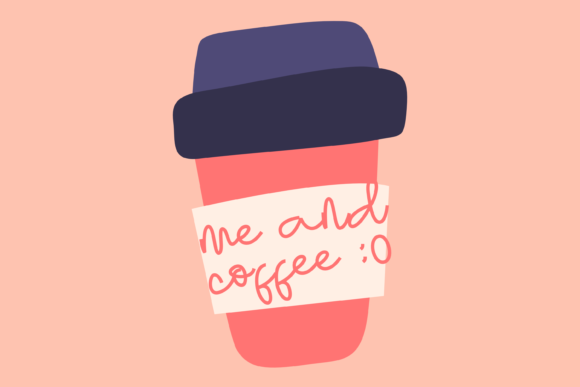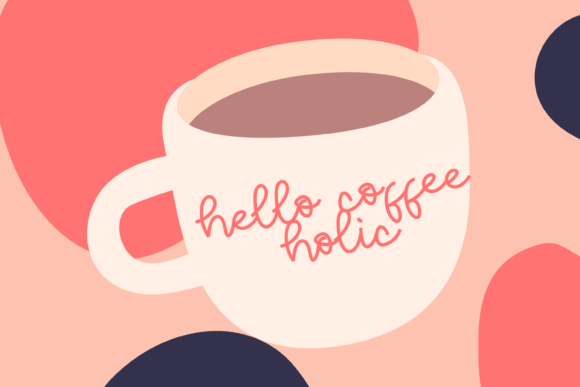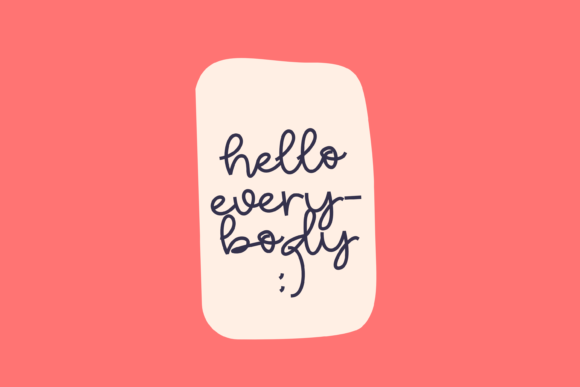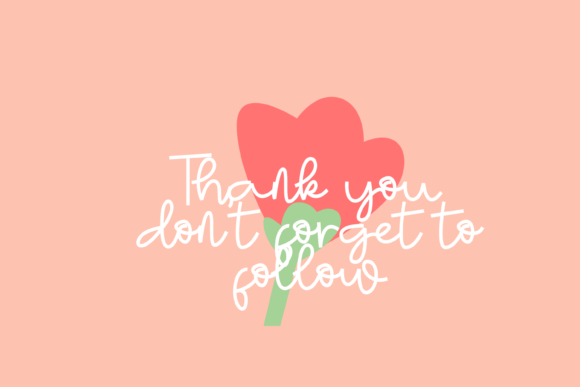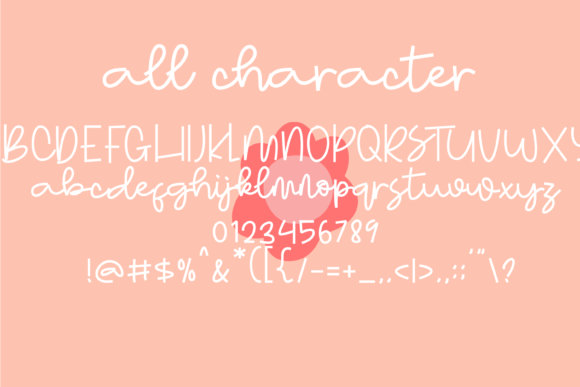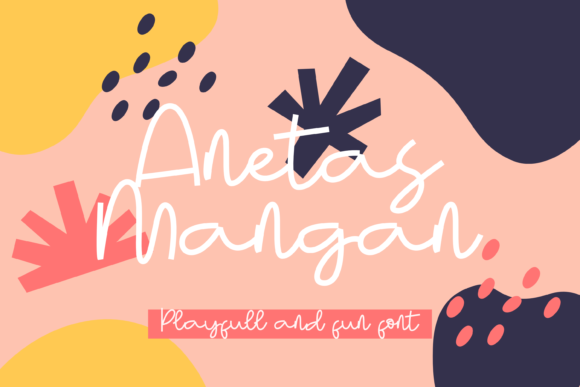
The Quest for the Perfect Font: Discovering Anetas Mangan
I’ll never forget the time I was working on a project for a client who wanted a friendly, approachable vibe for their branding. I had spent hours scouring font libraries, but nothing seemed quite right. That was until I stumbled upon Anetas Mangan, a fun and quirky handwritten font that instantly captured the essence of what my client was looking for.
Anetas Mangan is a cursive and natural-looking font that can make any of your lovely creations seem authentic and friendly. In this article, I’ll share my experience with this wonderful font, its features, and how to make the most of it in your designs.
An Honest Review of Anetas Mangan
- ✨ Unique and Quirky: Anetas Mangan has a distinct personality that sets it apart from more traditional fonts.
- ✅ Cursive and Natural-Looking: The font has a beautiful, flowing script that gives it an authentic feel.
- 💕 Friendly and Approachable: The overall vibe of Anetas Mangan is perfect for designs that need a warm, welcoming touch.
While Anetas Mangan is an excellent font, there are a few things to keep in mind:
- 🤔 Legibility at Small Sizes: Like many script fonts, Anetas Mangan can be a bit tricky to read at very small sizes. It’s best used at larger sizes or for headlines.
- ⚠️ Limited Use in Formal Contexts: Due to its playful nature, Anetas Mangan might not be the best choice for formal documents or professional settings that require a more serious tone.
A Practical Guide to Using Anetas Mangan
The Story Behind Anetas Mangan
Anetas Mangan was designed with the intention of creating a font that feels both modern and nostalgic. The designer aimed to capture the essence of handwritten text in a digital format, resulting in a font that’s both quirky and charming.
Q: Is Anetas Mangan suitable for body text?
A: While Anetas Mangan is beautiful, it’s best used for headings or short paragraphs due to its script nature and potential legibility issues at smaller sizes.
Q: Does Anetas Mangan support OpenType features?
A: Yes, Anetas Mangan supports various OpenType features, including ligatures and stylistic alternates, which can enhance your typography.